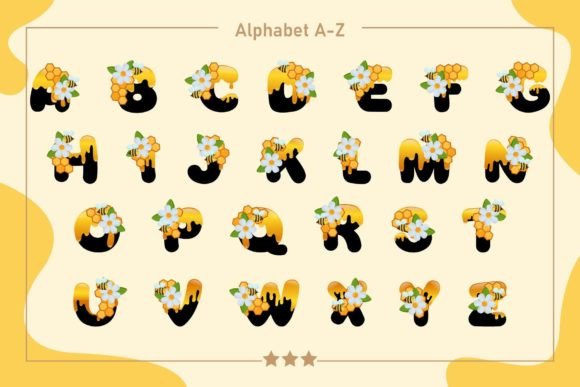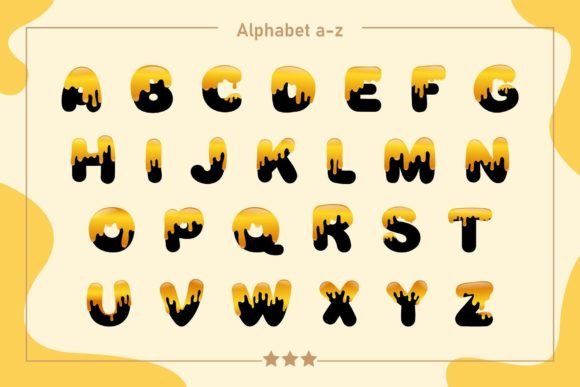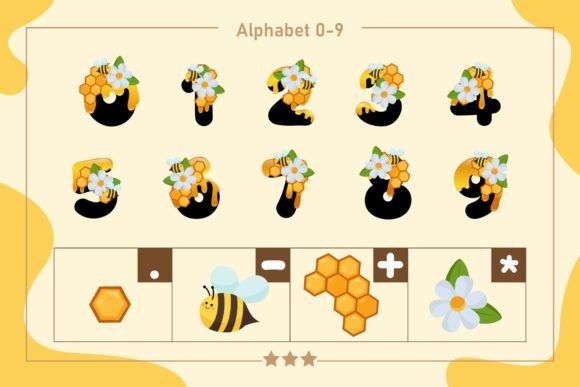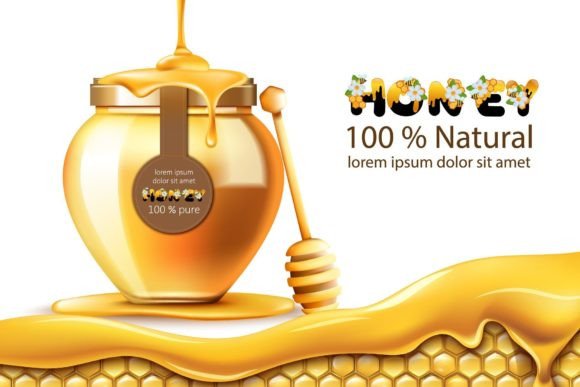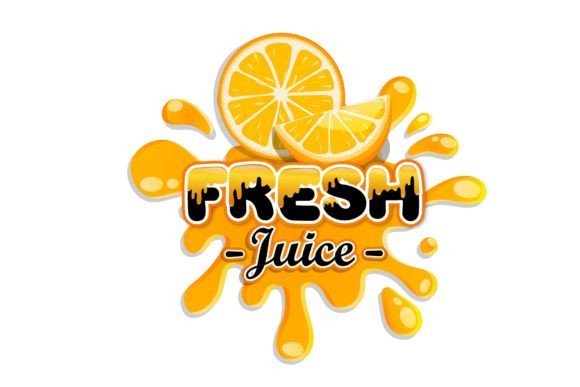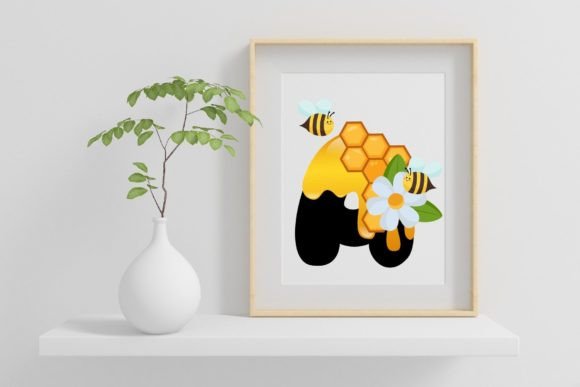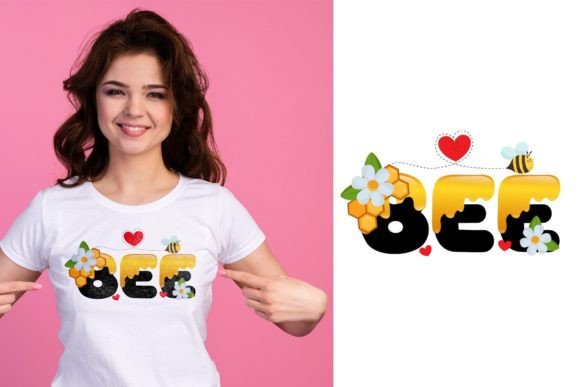
Honey Bee Font
Honey Bee is an intricately designed color font that exudes cuteness, freshness, and fun. Its authentic feel and charming aesthetics make it a perfect choice for various topics and design projects. Whether you’re working on invitations, stationary art, social media posts, or greeting cards, Honey Bee will add a unique touch that sets your creations apart.
When it comes to invitations, Honey Bee brings a delightful and whimsical vibe to your designs. Whether you’re planning a baby shower, a birthday party, or a special event, this font will enhance the overall theme and make your invitations truly eye-catching. The combination of colors and playful letterforms in Honey Bee will capture the attention of your recipients and make them excited to attend your event.
For stationary art, Honey Bee is a wonderful option to infuse your designs with a fresh and joyful atmosphere. Whether you’re creating notepads, letterheads, or stickers, this font will add a touch of cuteness and fun, making your stationary appealing and inviting. The vibrant colors and meticulously crafted details in Honey Bee will make your stationary art truly captivating.
Social media posts can benefit greatly from the charm of Honey Bee. Whether you’re designing graphics for promotions, announcements, or inspirational quotes, this font will add a burst of energy and playfulness to your posts. With Honey Bee, your social media content will stand out in feeds, attract attention, and engage your audience.
Greeting cards are another area where Honey Bee shines. Its cute and fresh style is perfect for conveying warm wishes, gratitude, or simply spreading joy. Whether it’s a birthday, holiday, or any special occasion, Honey Bee will add a touch of sweetness and make your greeting cards memorable and heartwarming.
Fall in love with Honey Bee and let it bring a delightful and unique touch to your designs. Explore its versatility and notice how it makes your invitations, stationary art, social media posts, and greeting cards truly stand out. Embrace the cuteness, freshness, and fun that Honey Bee offers, and let your creativity soar. Enjoy the process of creating with this beautiful font and watch your ideas come to life in a captivating way.